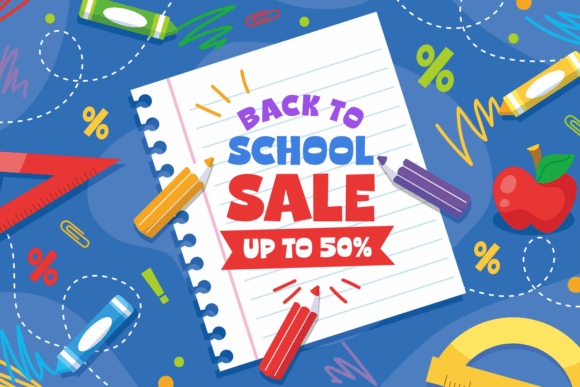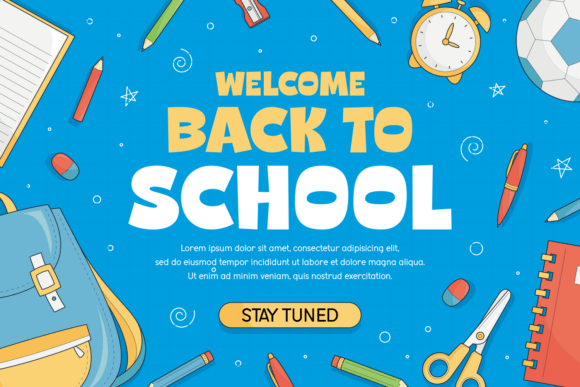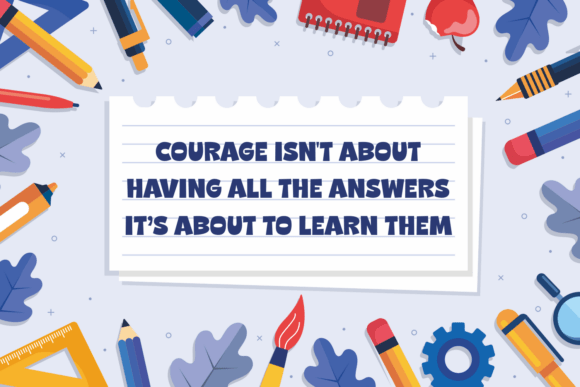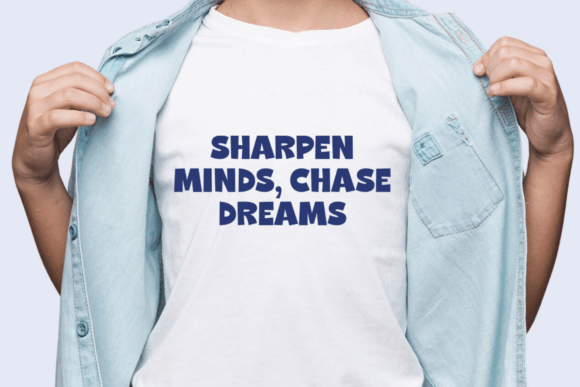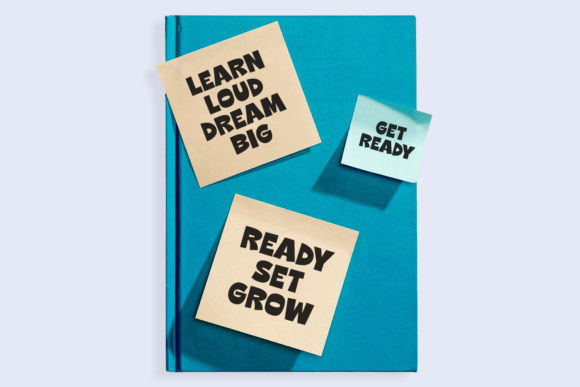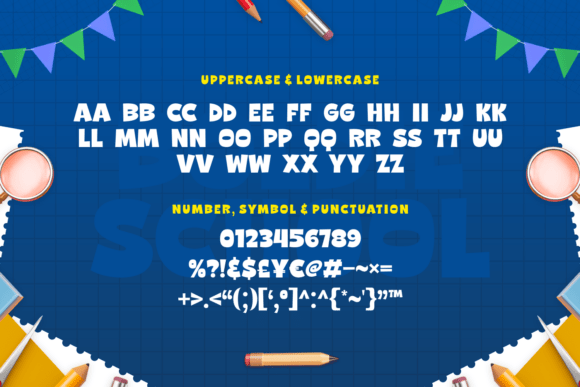
Get Ready to Make a Statement with the Boldie School Font
Do you remember the excitement of going back to school after a long summer break? The thrill of buying new notebooks, sharpening pencils, and decorating your locker with colorful posters? That same energy and enthusiasm are what inspired the creation of the Boldie School Font, a fun and chunky display font designed to bring bold energy to any classroom-themed design.
Whether you’re a teacher looking to create engaging educational printables or a designer working on a kids’ project, the Boldie School Font is the perfect tool for the job. With its vibrant and friendly style, it makes every word pop with confidence and creativity, making it a valuable addition to any designer’s toolkit.
Boldie School Font Key Features
- Unique Characteristics: The font features a unique, playful design with bold lines and rounded edges, making it perfect for creating eye-catching and engaging designs.
Review of Boldie School Font
Overall, I think Boldie School Font is a unique and quirky addition to any design project. Here’s what I love about it: ✨
- It’s perfect for creating a playful and energetic vibe, making it ideal for children’s books, educational materials, or any project that needs a youthful feel.
- The bold and colorful lines add a touch of whimsy and personality to the font, making it stand out from more traditional font options.
- The font is highly customizable, allowing designers to adjust the size, color, and style to fit their specific needs.
- The font may not be suitable for projects that require a more professional or formal tone, as it can come across as too playful or immature.
- The bold lines and bright colors can be overwhelming if used excessively, so it’s essential to use restraint and balance when incorporating the font into a design.
Overall, I think Boldie School Font is a great choice for designers who want to add a bit of personality and whimsy to their projects. While it may not be suitable for every project, it’s a fantastic option for those who want to create a fun and engaging design.
Tips for Getting the Most Out of Boldie School Font
Use Boldie School Font for headings, titles, and emphasis to create a visually appealing design.
Combine Boldie School Font with other fonts to create a unique and playful look.
Boldie School Font is ideal for:
Children’s educational materials
Playful advertisements
Whimsical blog posts